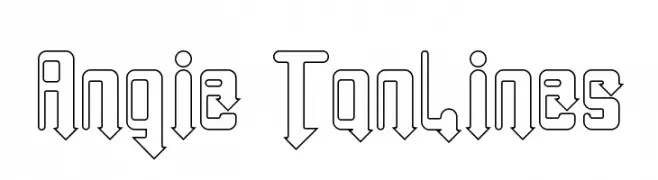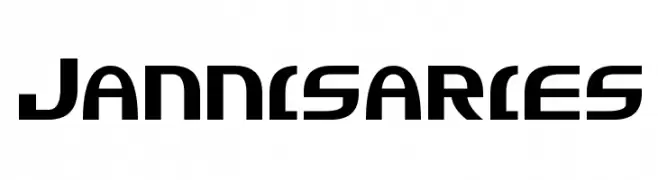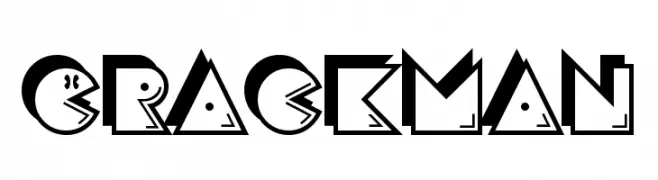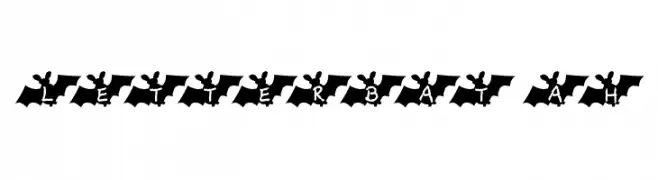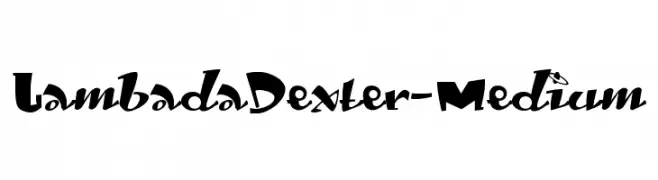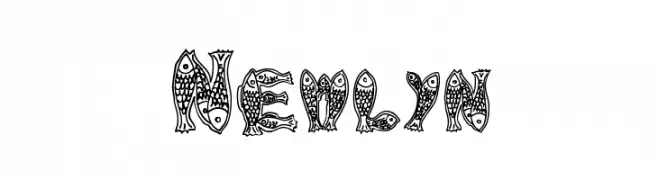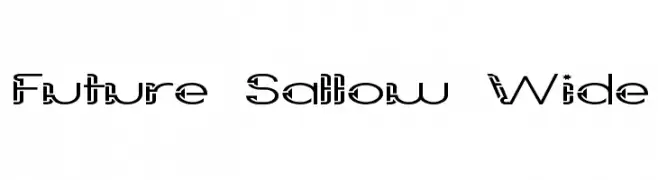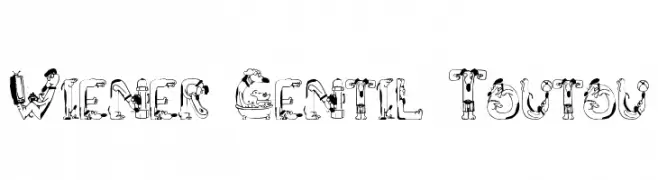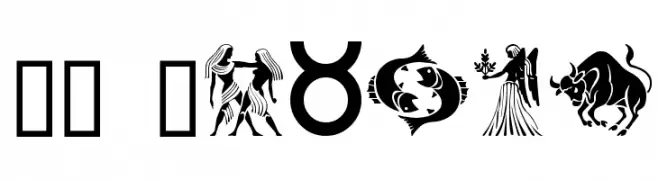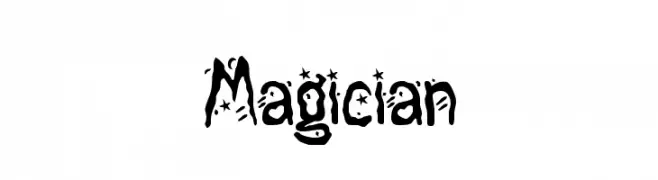
( Fonts by Rich Gast - www.greywolfwebworks.com OFF SITE )
A modern, decorative font with arrow-like elements and an outlined style.
( Fonts by www.fontalicious.com )
A bold, geometric font with a modern, digital-inspired design.
( Fonts by Mr Fisk - Mike Larsson - fontorama.net )
A bold, graffiti-inspired font with dynamic and energetic strokes.
( Fonts by François Bruel )
A bold, whimsical font with playful, decorative elements and dynamic letterforms.
( Fonts by Graham Meade - GemFonts )
A futuristic, geometric font with a unique blend of solid and outlined elements.
( Fonts by www.fenotype.com )
A bold, geometric font with a modern and playful design.
( Fonts by Nick Curtis - www.nicksfonts.com )
A bold, geometric font with high contrast and unique character shapes.
( Fonts by uatype.faithweb.com - UnAuthorized Type )
A playful, cartoonish font with characters integrated into dynamic illustrations.
( Fonts by Rob Dobi - Toxic Type - www.dobi.nu )
A dynamic, calligraphic font with sharp, angular strokes and expressive flourishes.
( Fonts by Emil Bertell - www.fenotype.com )
A bold, futuristic font with geometric shapes and dynamic negative space.